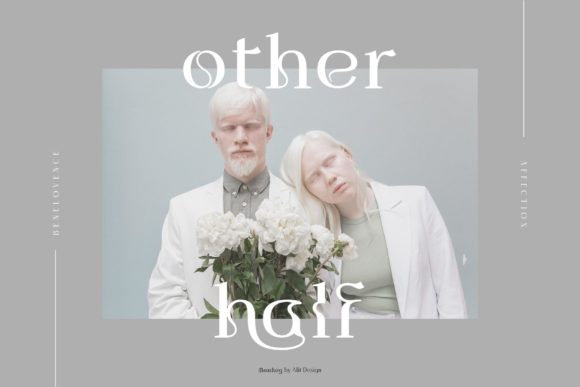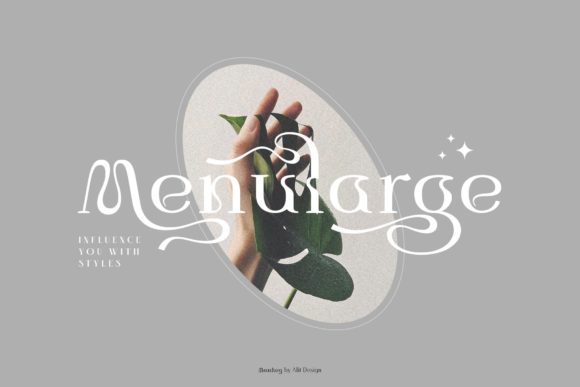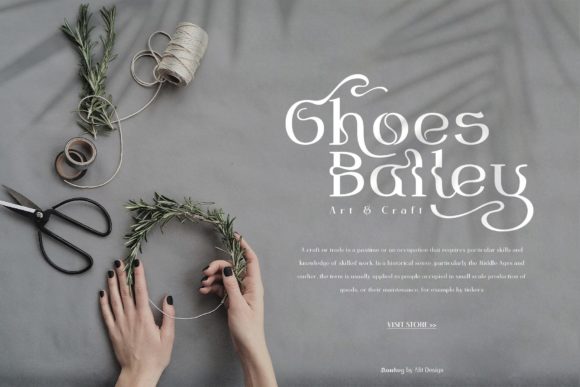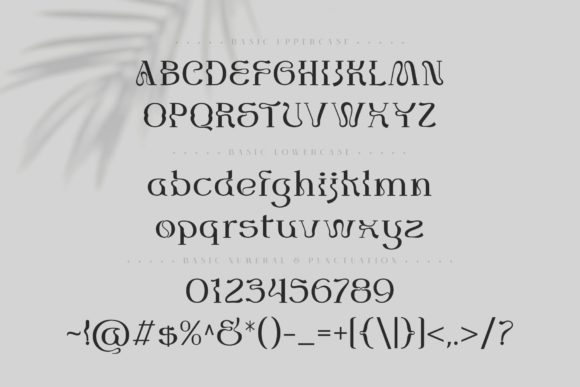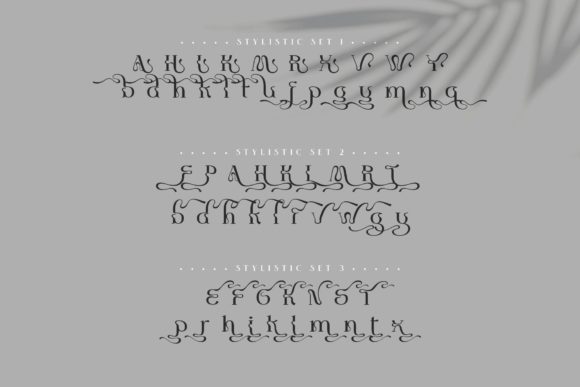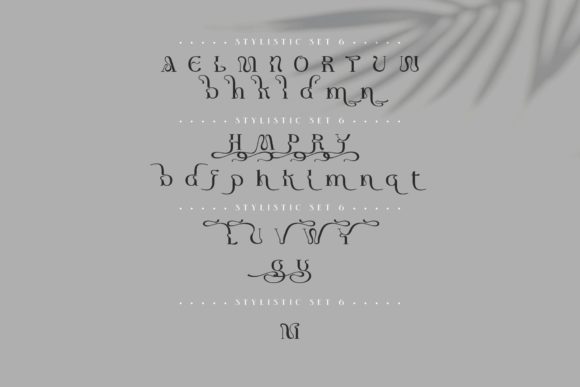
Introduction to Monkeg Font
Have you ever been working on a creative project and suddenly, the perfect font strikes your imagination? It’s a feeling that’s hard to describe, but when you find it, you know you’ve hit the jackpot. For designers, finding the right font can be a game-changer, elevating a design from good to great. And that’s exactly what the Monkeg Font does.
With its unique, curvy shape that resembles waves, the Monkeg Font is a modern display font that’s sure to make a statement. Whether you’re working on a design project that requires a high-quality, creative touch or simply looking for a free download to spice up your design resource library, this font is a valuable addition. Plus, its transparent background makes it easy to use on any background, ensuring a seamless design experience.
One of the standout features of the Monkeg Font is its PUA encoding, which allows you to access all of its amazing glyphs and ligatures with ease. This means you can get creative with your design without any limitations, making it an invaluable resource for designers of all levels.
Key Features of Monkeg Font
• Unique and playful design, ideal for creative projects and illustrations
• Includes a transparent background, allowing for easy customization and composition
• Designed with a modern and quirky aesthetic, perfect for adding a touch of whimsy to your design
Honest Review: Monkeg Font
I recently came across the Monkeg Font, a free download that’s quickly become a staple in my design toolbox. This high-quality font is perfect for any creative project that requires a touch of whimsy and personality.
• ✨ Unique design style that’s both playful and sophisticated
• ✨ Highly customizable, making it easy to adapt to any design project
• ✨ High-resolution images available for seamless integration into designs
• ⚠️ Limited character set, which may not be suitable for lengthy text-based projects
• ⚠️ May require additional design work to achieve a seamless transparent background
Overall, I’m thoroughly impressed with the Monkeg Font. Its high quality and versatility make it a valuable addition to any design resource collection. While it may have some limitations, I believe it’s well worth the free download.
The Monkeg Font is a versatile design resource that can be used in a variety of creative projects, including logos, graphics, and text-based designs. Its high-quality design makes it a great choice for both personal and professional projects.